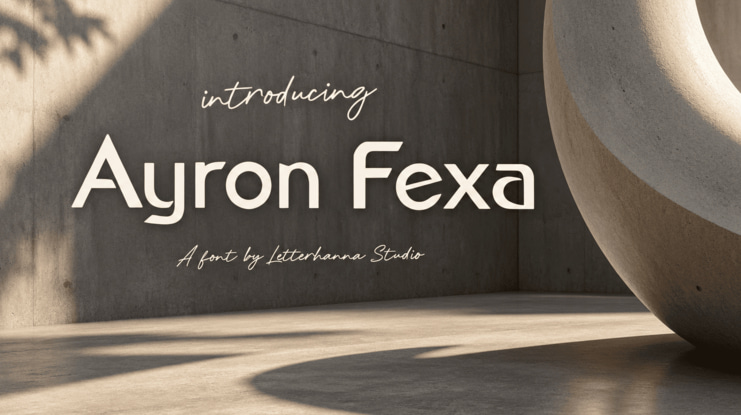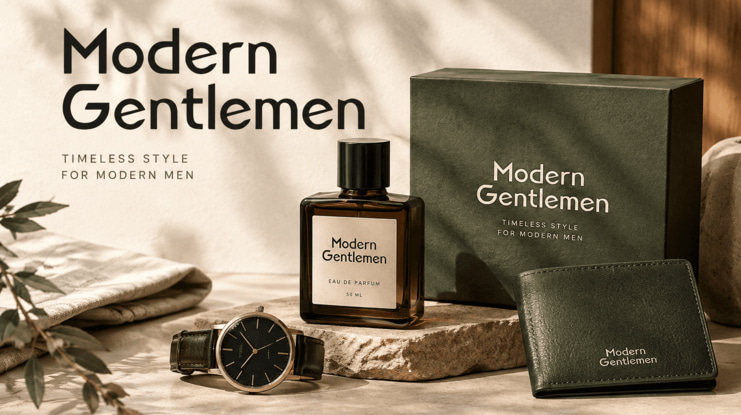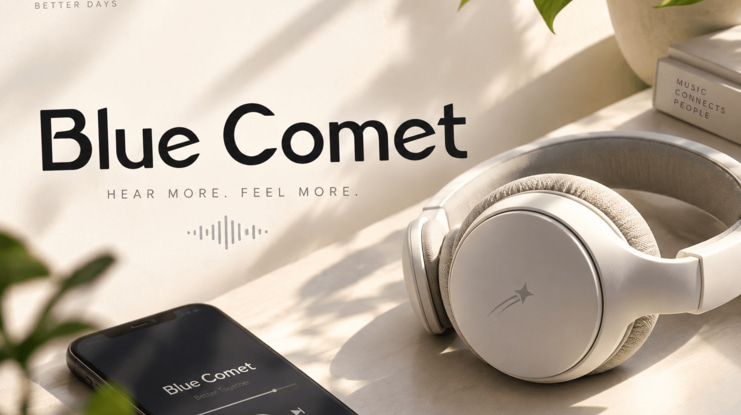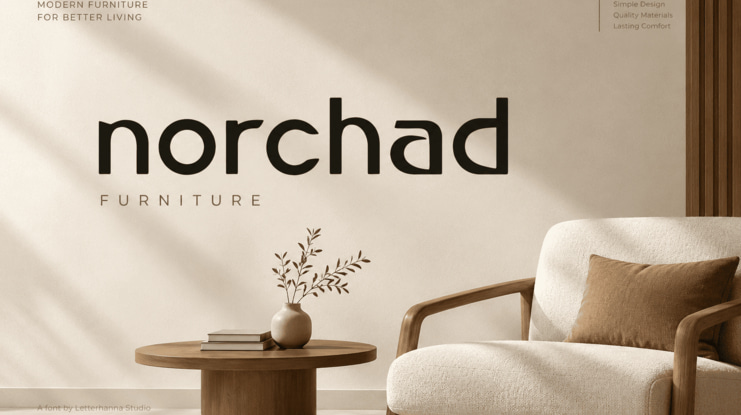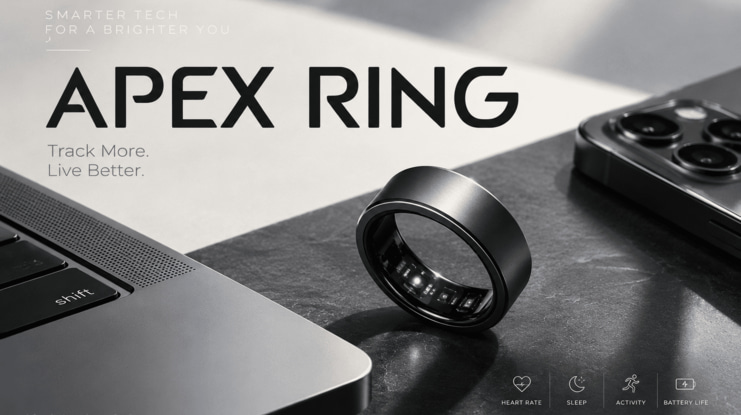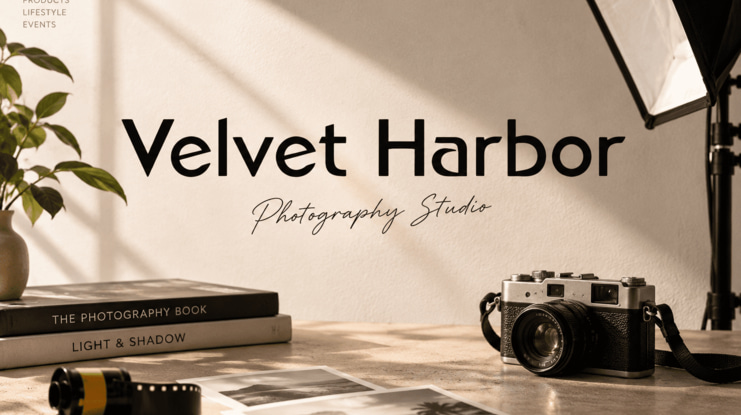
Every brand chasing a tech-forward, cutting-edge identity needs typography that speaks the same language. Ayron Fexa is a futuristic font built for exactly that moment — where geometry meets confidence.
A Geometric Font With Character
Ayron Fexa's letterforms are stripped down to clean geometric shapes, yet never feel cold. Rounded terminals and consistent stroke weight give it a friendly, approachable edge inside a bold structure.
Tech Font Energy for Digital-First Brands
This tech font was designed for screens as much as print. Wide counters and clear spacing keep it legible at small sizes — perfect for app interfaces, SaaS branding, and product packaging.
Where Ayron Fexa Shines
Tech startups and gadget branding
Fashion and lifestyle packaging
Music and audio product covers
Furniture and home brand logos
Wellness and fitness tech labels
A Modern Font Built for Versatility
From the sharp precision of a smart ring ad to the soft elegance of a menswear label, Ayron Fexa adapts without losing its futuristic soul — proof that one modern font can carry many stories.
Bring Your Brand Into the Future